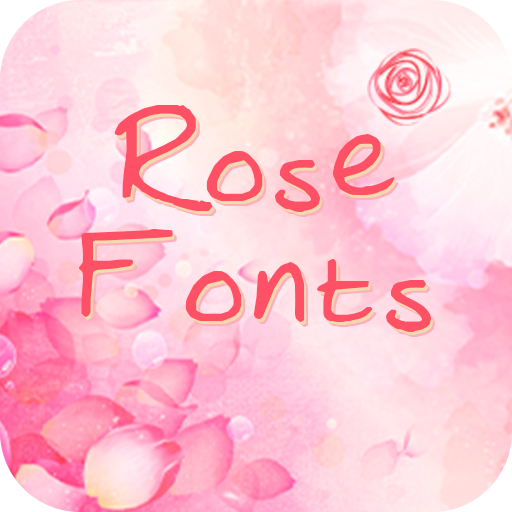
Rose Fonts
Rose Fonts is a small font pack that provides beautiful style written typefaces for Android.It will be easy、fast for your phone to change fonts for free and it is compatible with the font programmer on your phone.
Rose Fonts pack is much easier for you to customize your phone fonts for free. It will make your phone amazing and unique among your friends.Please enjoy it and it will provide you a wonderful experience!